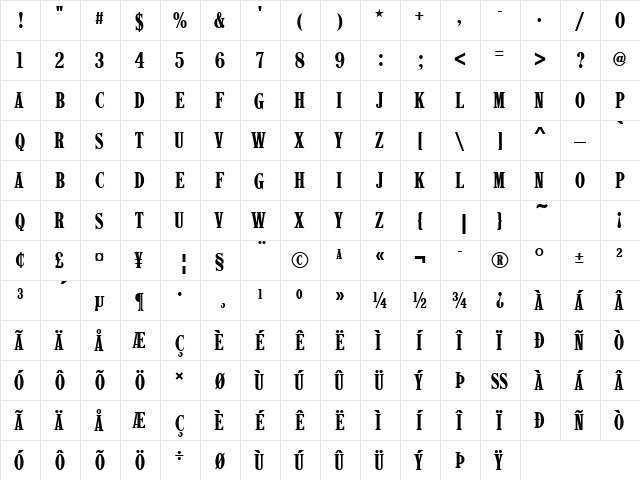
Latin Becker Compress Regular
Design Context for Latin Becker Compress Typeface
Latin Becker Compress offers clean, dependable letterforms without strong stylistic allegiance, making it a practical choice for designers who need flexibility.